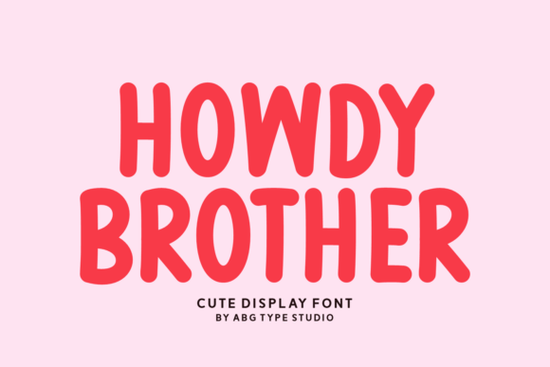
Finding the right typeface for a kids' clothing line, a nursery wall decal, or a classroom poster often means balancing readability with personality. The Howdy Brother Font pack delivers exactly that mix. Created by Abg Type Studio, this digital collection offers rounded, friendly letterforms that feel both playful and clean. Whether you are a print-on-demand seller making toddler tees or a teacher organizing a learning environment, these chunky and handwritten styles give your text a warm, approachable look without sacrificing legibility.
What kinds of crafting projects need rounded, chunky letters?
When working with physical materials like adhesive vinyl or sublimation paper, thick fonts tend to weed and press much easier than thin, delicate scripts. The bolder options in this collection are practically built for hands-on crafting. You can use them to cut out large decals for toy bins, create personalized birthday party banners, or design custom baby shower announcements. Because the letters have a slightly quirky, hand-drawn feel, they add a highly personalized touch to scrapbooking pages and handmade greeting cards. Small businesses selling at local craft fairs often rely on this exact aesthetic to attract families and parents. If you are looking for something a bit more elegant for a boutique project, you might also explore options like the Haely typeface to see how a softer display style compares to these bolder choices.
How can you mix different typography styles for branding?
Relying on just one typeface can make a brand feel flat, especially if you sell a variety of products to different age groups. The great thing about downloading a versatile bundle is having multiple options on hand for different moods. You might use the boldest, funniest letters for a summer party invitation, but switch to the sleek, handwritten elements for a minimalistic sticker design. Experimenting with contrast is a standard practice for graphic designers. For instance, if you are designing a retro-themed shirt, you could test out a heavier, mechanical style like the Super Robocop lettering for the main title, and use a friendly, rounded font for the subtitle. Similarly, adding an organic texture with a hand-painted option like Brush Empire or a classic serif like Razora can completely change the emotional impact of your final artwork.